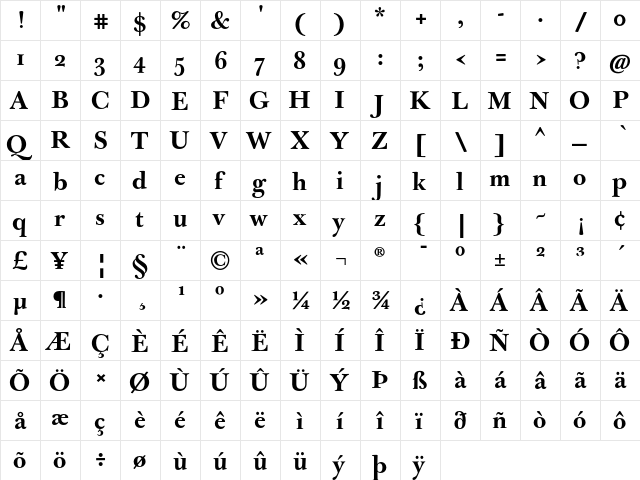
J Baskerville Med Bold
Design Context for J Baskerville Med Typeface
J Baskerville Med offers clean, dependable letterforms without strong stylistic allegiance, making it a practical choice for designers who need flexibility. The heavy weight commands attention and anchors typographic hierarchies.
Pro Tip: Use J Baskerville Med in both headline and body roles to test its range before committing to a single application.